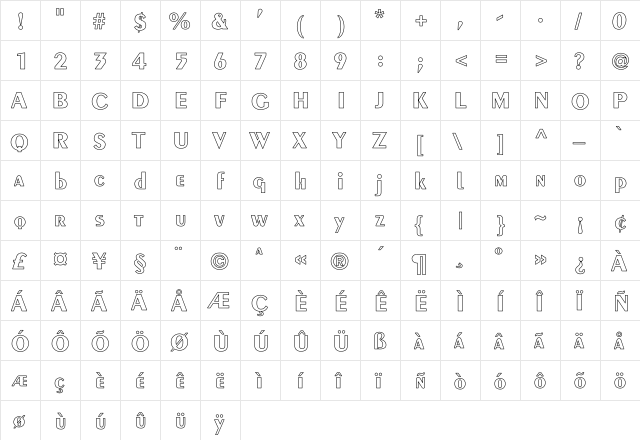
Peignot-Demi-Bold Hollow Regular
Design Context for Peignot-Demi-Bold Hollow Typeface
Peignot-Demi-Bold Hollow is a composed and adaptable typeface that performs quietly and consistently across a wide range of design contexts. Its bold stroke weight gives it real presence on the page.